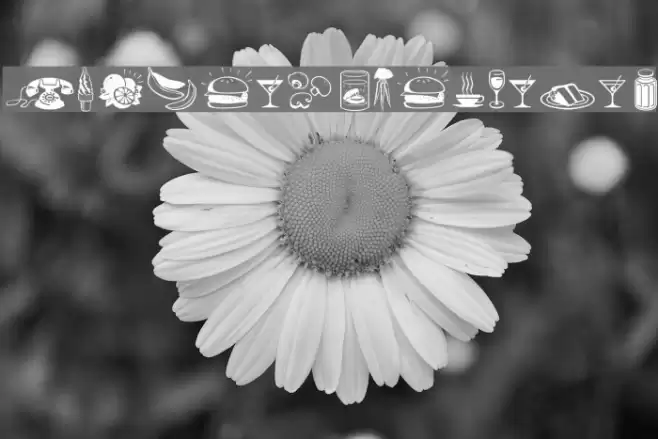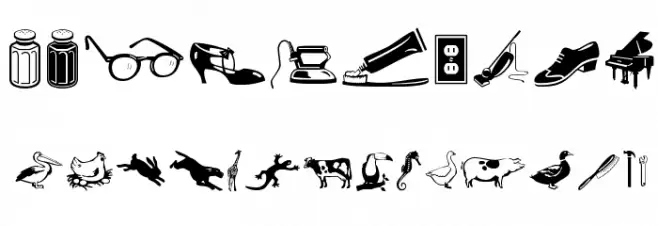
Journal Dingbats 1 Font
Journal Dingbats 1 Description
This collection of dingbats features a diverse array of playful and illustrative icons, ranging from everyday objects to whimsical animals. The icons include items like tools, food, beverages, and various animals, each depicted in a bold, black silhouette style. The designs are simple yet detailed enough to convey the essence of each object or creature. The style is consistent across the set, making it suitable for a variety of decorative purposes. The icons are versatile and can be used to add a touch of fun and creativity to projects.
A playful collection of bold, illustrative dingbats featuring objects and animals from Uncategorized fonts.
- Proposed Projects: Ideal for creating decorative borders, enhancing invitations, designing playful posters, or adding unique elements to scrapbooking projects.
- Overall Style: Playful, Illustrative
- Use Case: Decorative elements, Crafting, Invitations